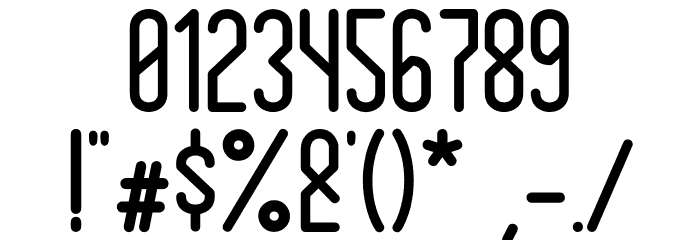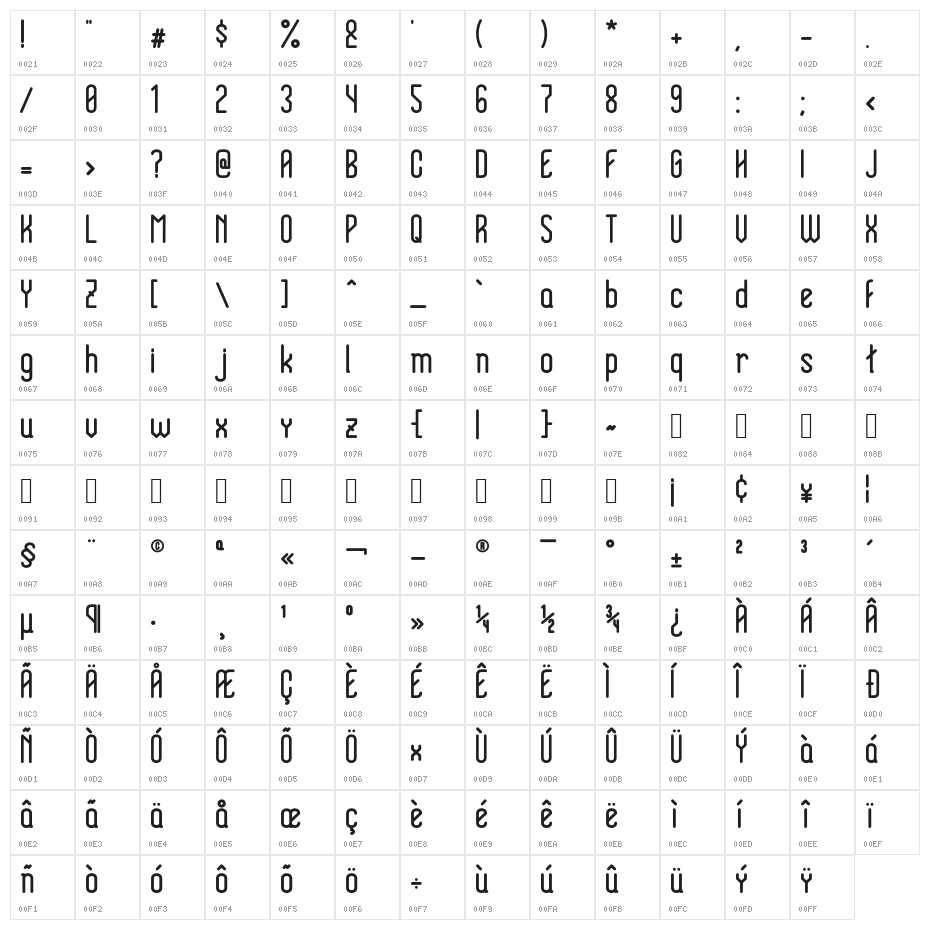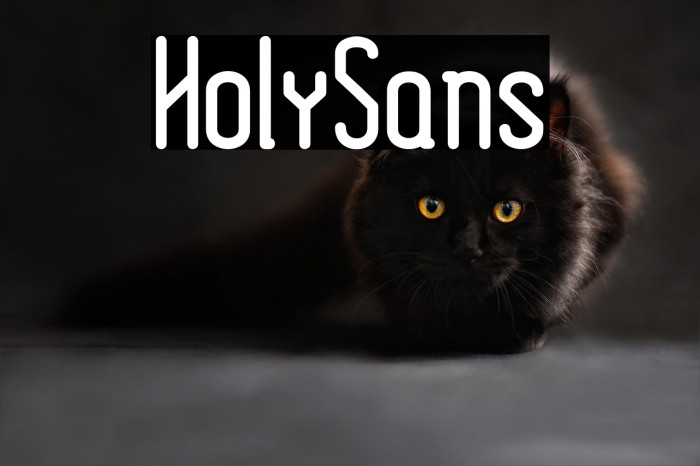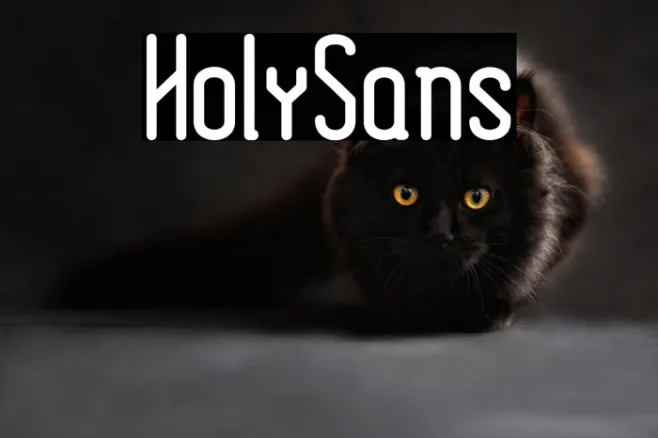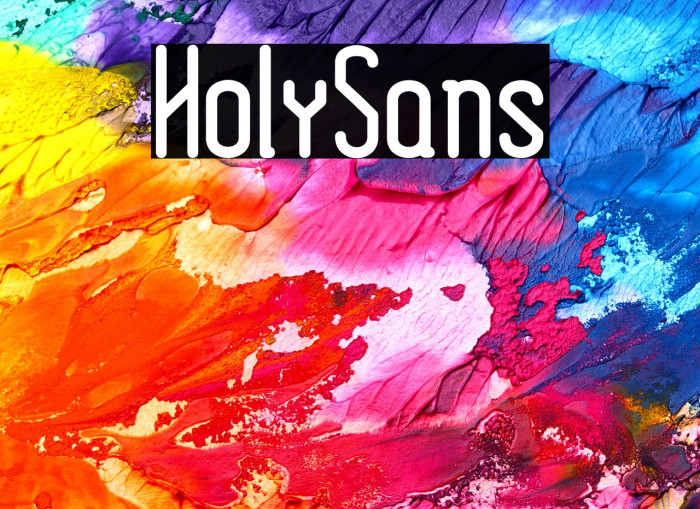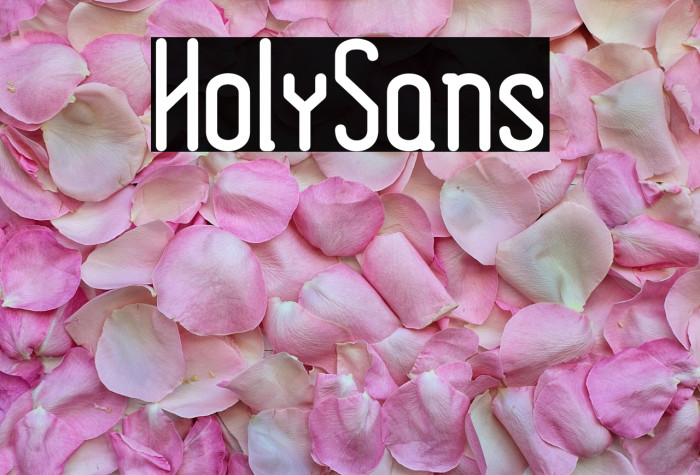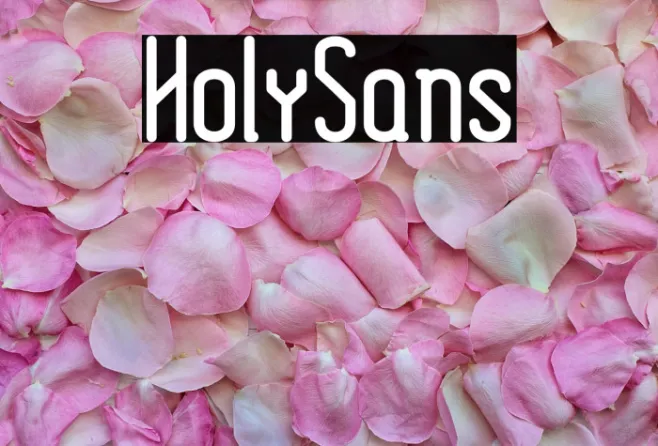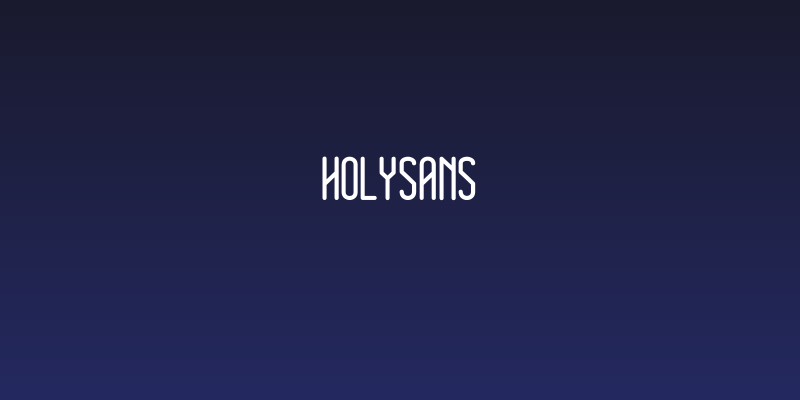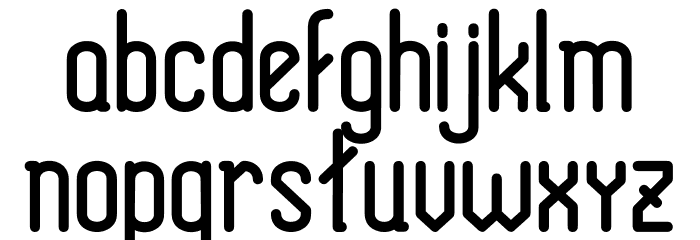
HolySans Font
HolySans Description
This font features a modern, rounded sans-serif style with a clean and approachable appearance. The characters are uniformly structured with consistent stroke widths, giving it a cohesive and balanced look. The rounded edges soften the overall feel, making it friendly and inviting. The uppercase and lowercase letters maintain a uniform height, while the numerals are clear and easily distinguishable. Special characters are well-integrated, maintaining the font's overall aesthetic. This font is versatile, suitable for a variety of design projects that require a contemporary and approachable touch.